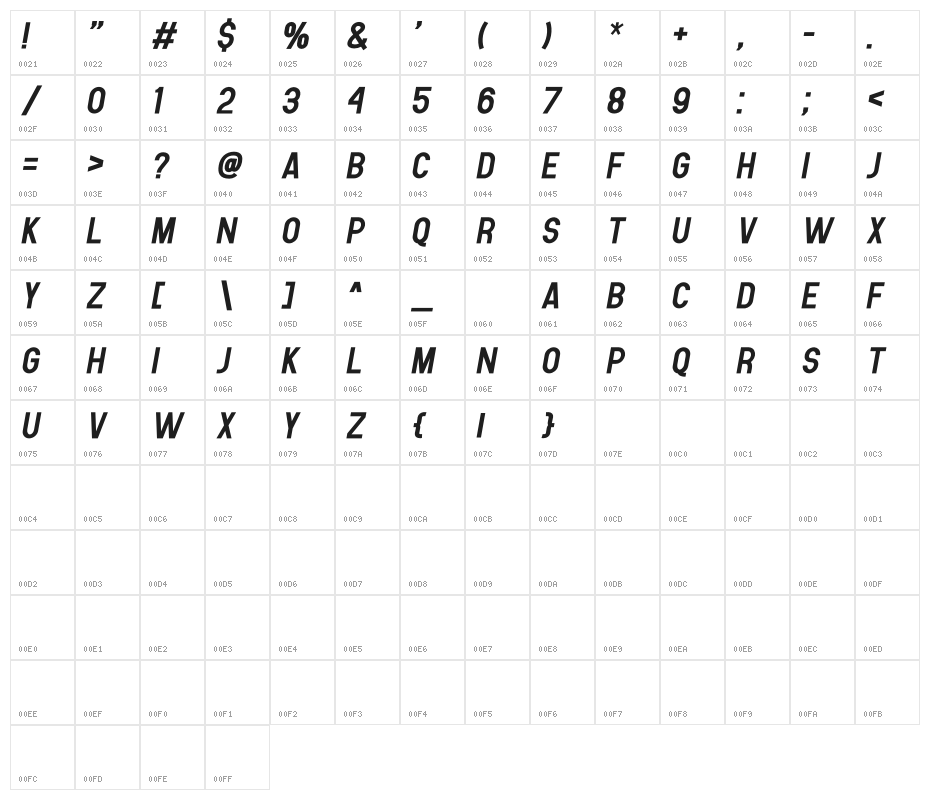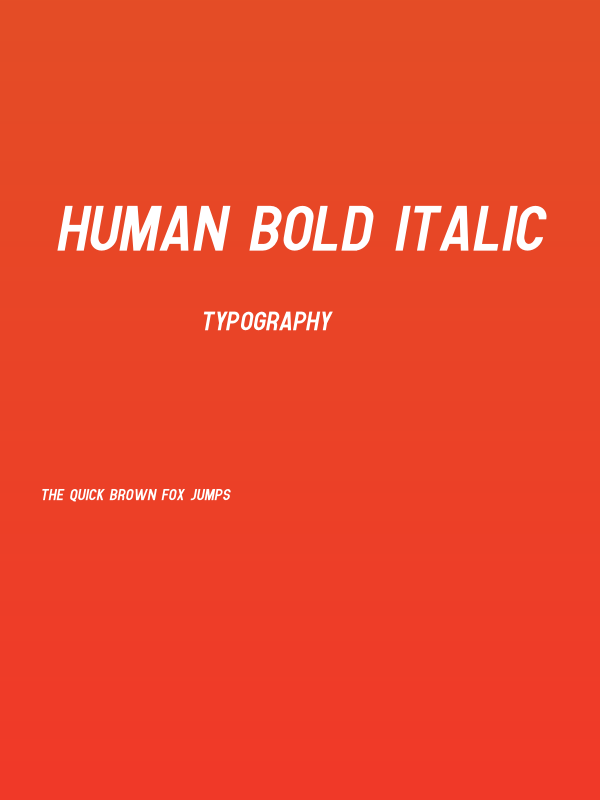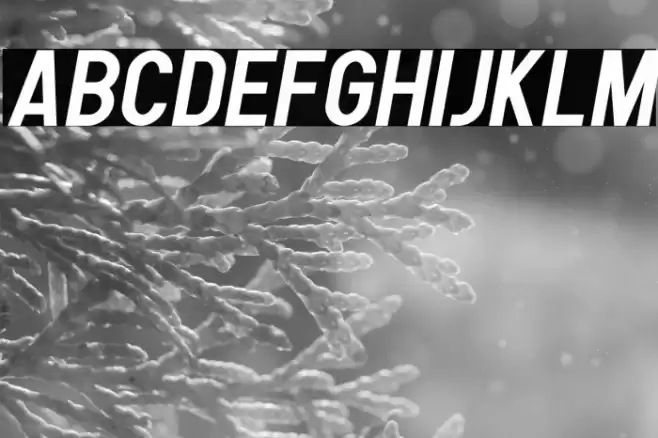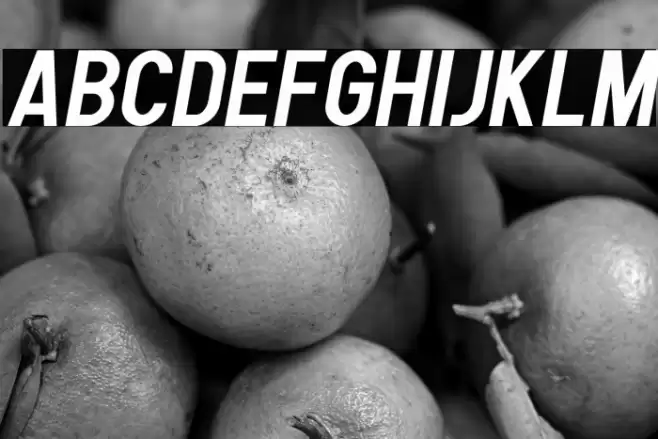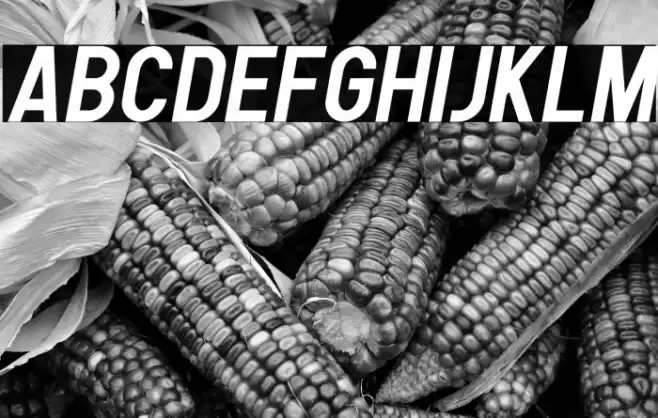
Human Bold Italic Font
Human Bold Italic Description
This font exhibits a bold and italicized style, characterized by its strong and assertive presence. The letters are slanted, adding a dynamic and forward-moving feel. The strokes are thick, providing a robust and impactful appearance. The font maintains a consistent weight throughout, ensuring readability and clarity. It is well-suited for making statements and drawing attention, with its boldness accentuated by the italic slant. The numbers and special characters follow the same bold and italicized design, ensuring uniformity across all elements.
| Proposed Projects | Ideal for headlines, posters, branding materials, and any project requiring a bold statement. |